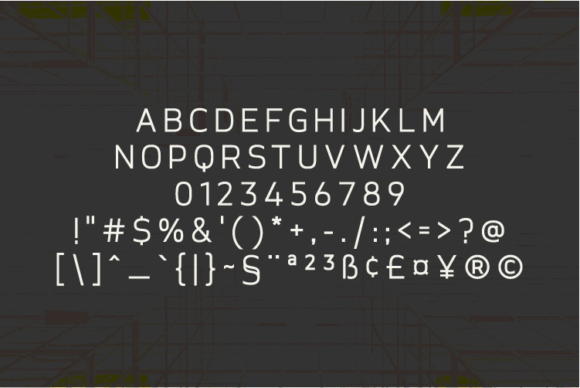
Introducing Arkqunie Medium Font: The Ultimate Geometric Sans Serif Typeface
Are you a designer or crafter looking for a versatile and stylish font to elevate your creative projects? Look no further than Arkqunie Medium Font, a casual and geometric sans serif typeface that offers maximum flexibility. With its unique features and exceptional design, Arkqunie is perfect for a wide range of applications, from headlines and postcards to business cards, logos, and more.
What Makes Arkqunie Stand Out?
Arkqunie’s design is characterized by its geometric sans serif style, which gives it a clean and modern look. However, what sets it apart from other fonts in the same category is its special features in every corner of each letter. These distinctive touches add a level of sophistication and elegance to the font, making it ideal for projects that require a bit of flair.
One of the key benefits of Arkqunie Medium Font is its versatility. Its design makes it suitable for a wide range of applications, including:
- Headlines: Arkqunie’s bold and geometric design makes it perfect for grabbing attention and creating eye-catching headlines.
- Postcards: The font’s casual and friendly feel makes it ideal for postcards, where you want to convey a sense of approachability and warmth.
- Business Cards: Arkqunie’s professional and modern design makes it a great choice for business cards, where you want to make a strong impression.
- Logos: The font’s unique features and geometric style make it perfect for creating memorable and distinctive logos.
- Letterheads: Arkqunie’s clean and modern design makes it a great choice for letterheads, where you want to convey a sense of professionalism and sophistication.
- Magazines: The font’s readability and style make it suitable for magazine titles, headings, and body text.
- Posters: Arkqunie’s bold and eye-catching design makes it perfect for posters, where you want to grab attention and convey a message.
Why Choose Arkqunie Medium Font?
There are many reasons why designers and crafters should choose Arkqunie Medium Font for their projects. Here are just a few:
- Unique Design: Arkqunie’s geometric sans serif design is unlike any other font on the market. Its special features in every corner of each letter make it truly unique and memorable.
- Maximum Flexibility: The font’s versatility makes it suitable for a wide range of applications, from digital projects to print materials.
- Easy to Read: Arkqunie’s clean and modern design makes it easy to read, even at small sizes.
- High-Quality: The font is designed to high-quality standards, ensuring that it will look great in any project.
Tips for Using Arkqunie Medium Font
To get the most out of Arkqunie Medium Font, here are a few tips:
- Experiment with Different Sizes: Arkqunie looks great at a range of sizes, from small body text to large headlines. Experiment with different sizes to find the one that works best for your project.
- Pair with Other Fonts: Arkqunie pairs well with other fonts, especially those with a similar geometric style. Experiment with different pairings to find the one that works best for your project.
- Use for Digital and Print Projects: Arkqunie is suitable for both digital and print projects. Use it for everything from website headers to business cards and brochures.
Arkqunie Medium Font is a versatile and stylish geometric sans serif typeface that offers maximum flexibility. With its unique features and exceptional design, it’s perfect for a wide range of applications, from headlines and postcards to business cards, logos, and more. Whether you’re a designer or crafter, Arkqunie is a great choice for any project that requires a bit of flair and sophistication.